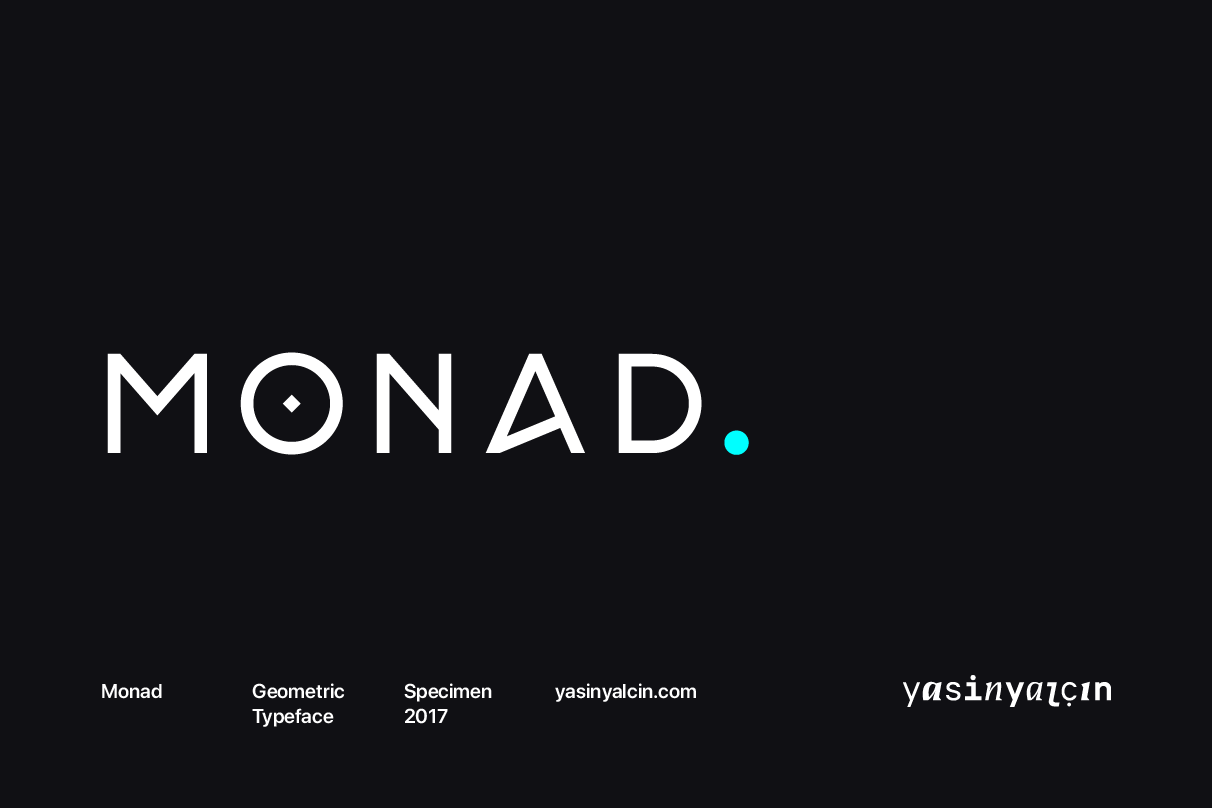
Monad Typeface
Monad is a minimal, modern, geometrical and elegant typeface. It is modern yet stylish which is great for display purpose such as logotype, poster, product packaging and headline as well. It features uppercase letters, numbers and punctuation.